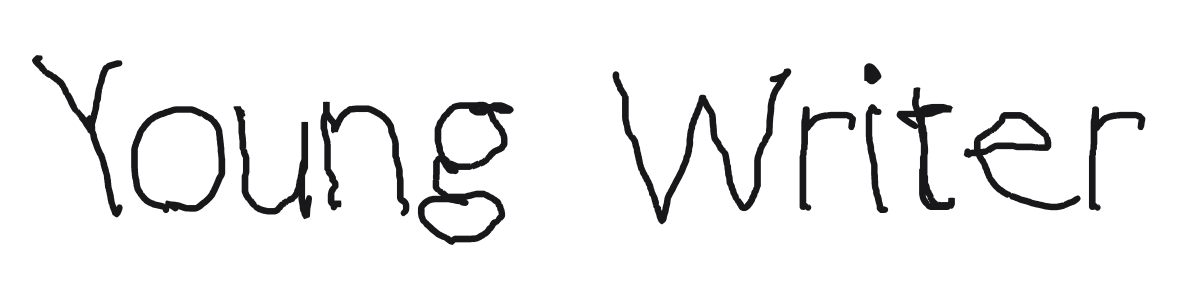
Young Writer
Young Writer is a thin, upright handwritten font that genuinely looks like a child wrote it with a pencil. The strokes wobble, the spacing is uneven, and small ink blobs punctuate certain letters in a way that feels completely unforced. It brings immediate authenticity to anything that needs to feel personal, handmade, or young.